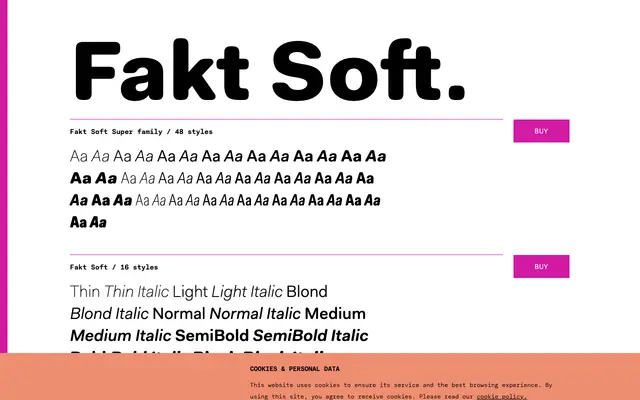
Fakt Soft
A softened geometric sans spanning 48 styles across three widths, each offering eight weights with italics and an extensive set of OpenType alternates.
Fakt Soft takes the neutral, structured character of a geometric grotesque and rounds off its terminals for a warmer, less severe tone. The super family runs across standard, SemiCondensed and Condensed widths, each with eight weights from Thin to Black and matching italics. OpenType features are generous, covering small capitals, oldstyle and tabular figures, multiple stylistic alternates per letter, and a historical long-s.
Fakt Soft is a geometric sans-serif with softened terminals and rounded details, placing it firmly in the geometric sans tradition with humanist inflections introduced through its soft stroke endings.